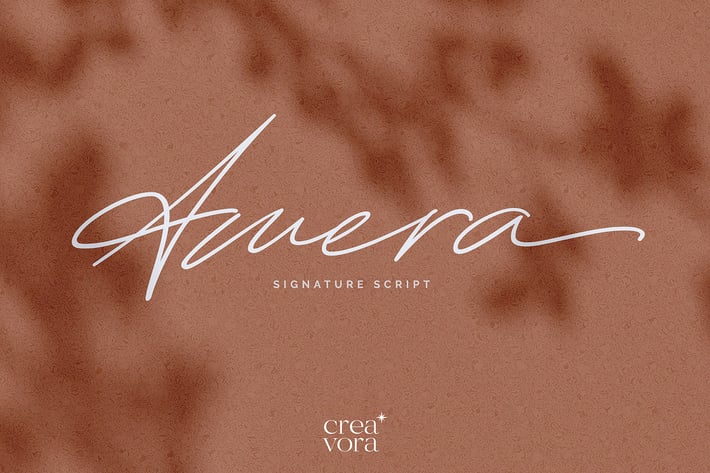
Amera - Signature Script Font
Amera - Special Signature Script.
Amera is a signature style font, this font is perfect for watermarks, invitations, stationery, wedding designs, social media posts, advertisements, product packaging, product designs, labels, photography, logo, special events and more.
- Uppercase Characters
- Lowercase Characters
- Punctuation, Numerical, Ligatures
- Multilingual support for various languages including: French, German, Spanish, Portuguese, Italian, Dutch, Finnish, Swedish, and more.